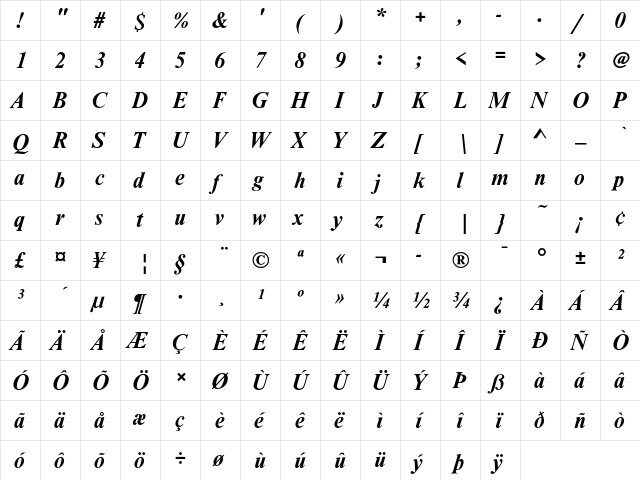
Nimbus Roman D Bold Italic Font Preview
Design Context for Nimbus Roman D Typeface
Nimbus Roman D offers clean, dependable letterforms without strong stylistic allegiance, making it a practical choice for designers who need flexibility. Its italic angle brings a sense of urgency and motion to the letterforms. Its bold stroke weight gives it real presence on the page.
Pro Tip: Try Nimbus Roman D for annotation and caption copy alongside an upright companion — the contrast in angle creates a dynamic but ordered typographic system.